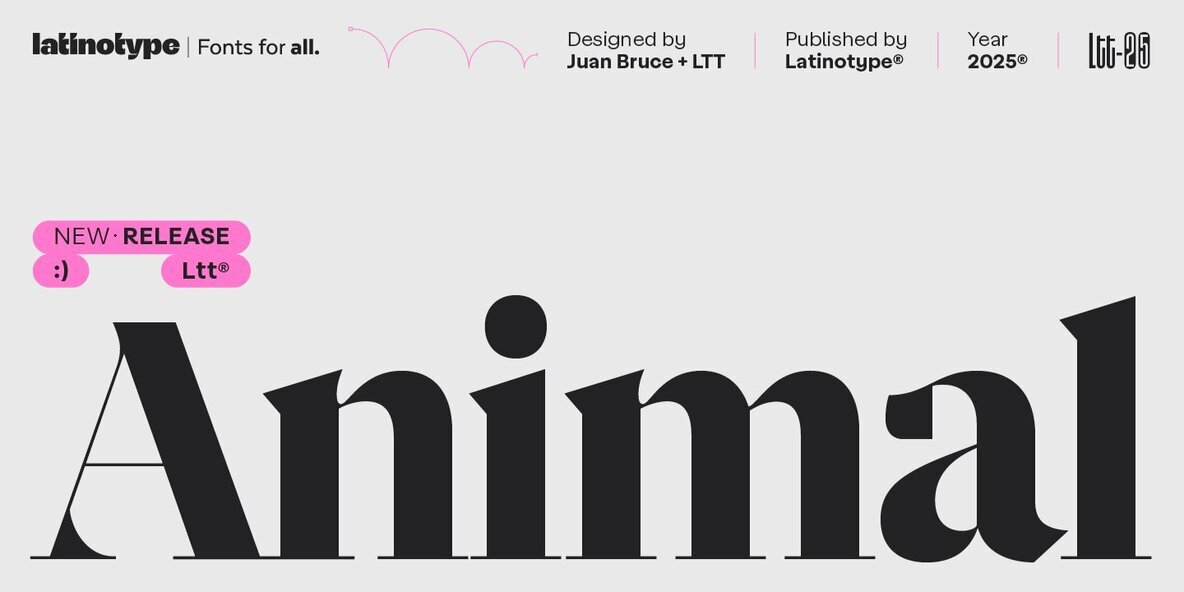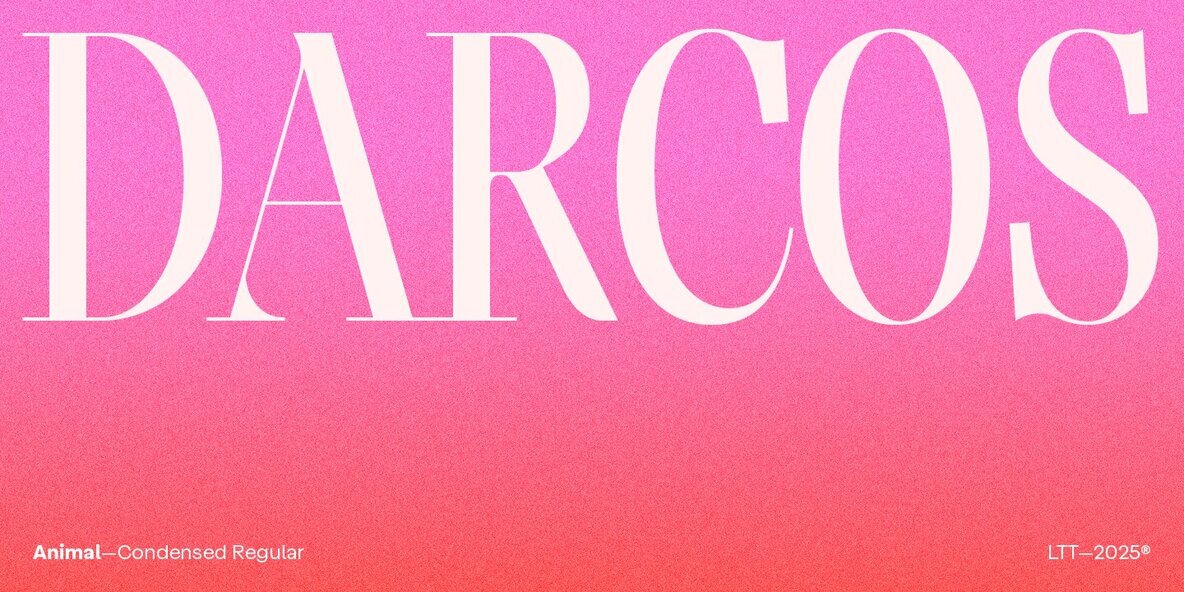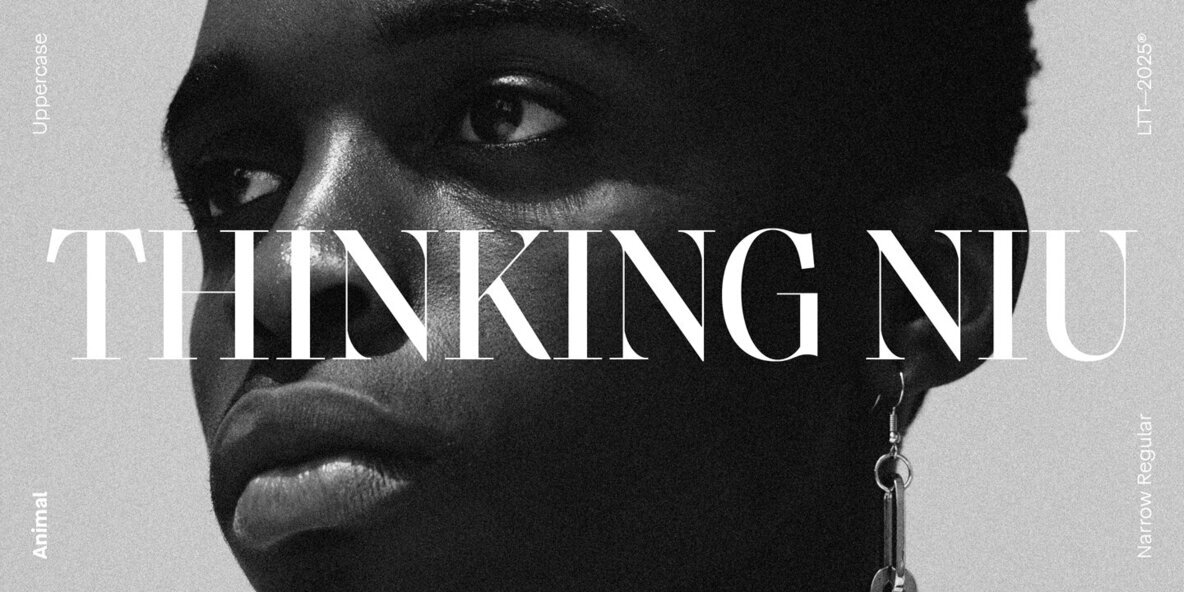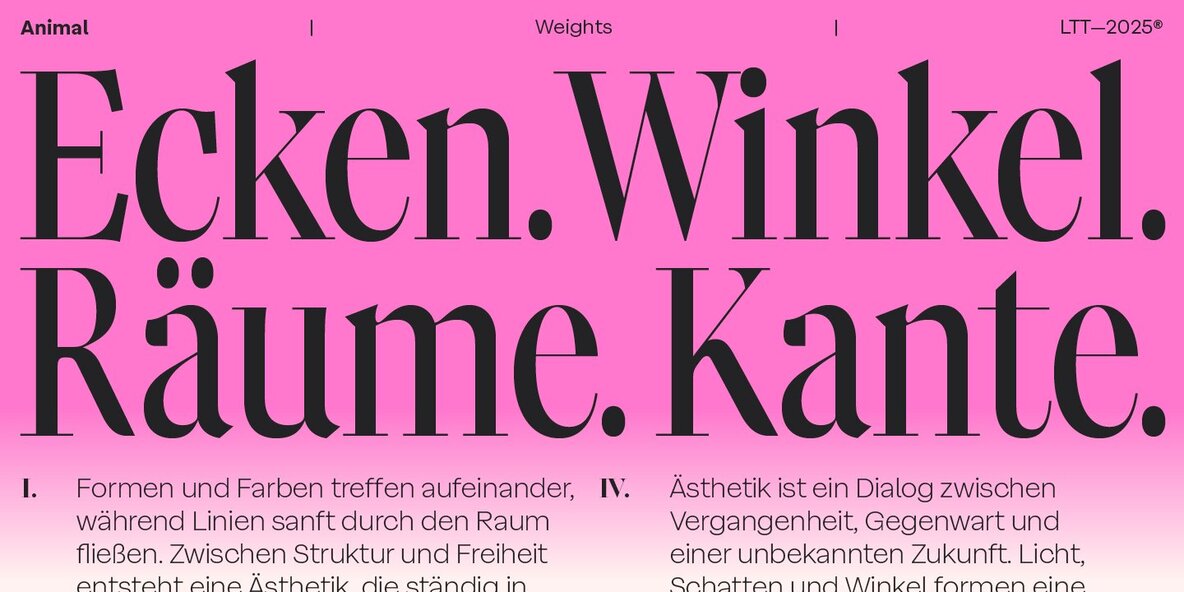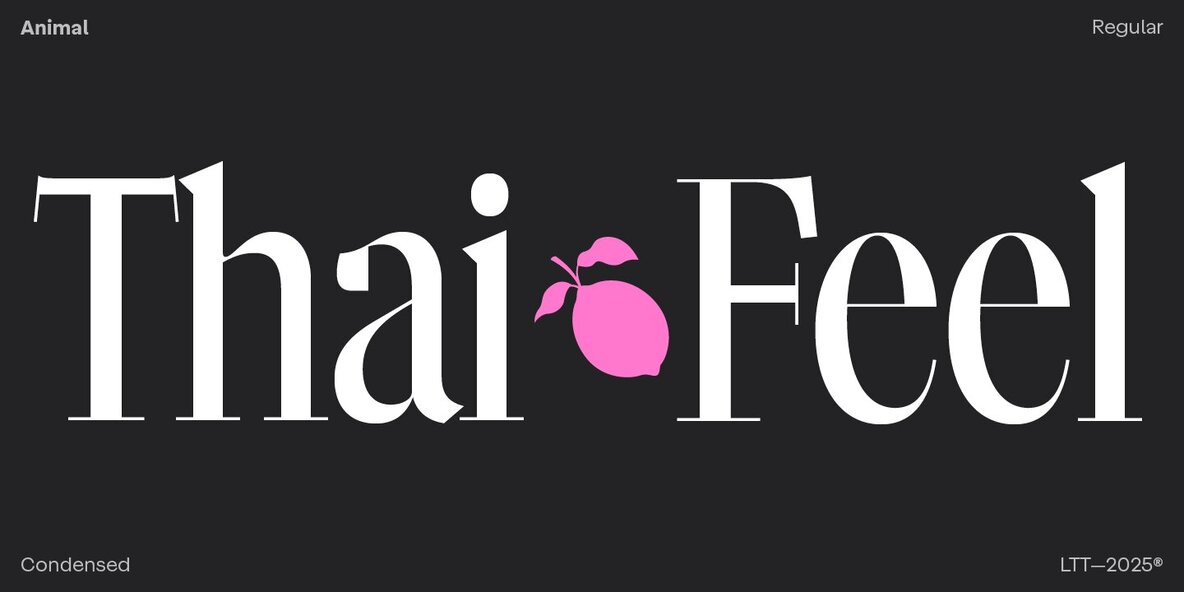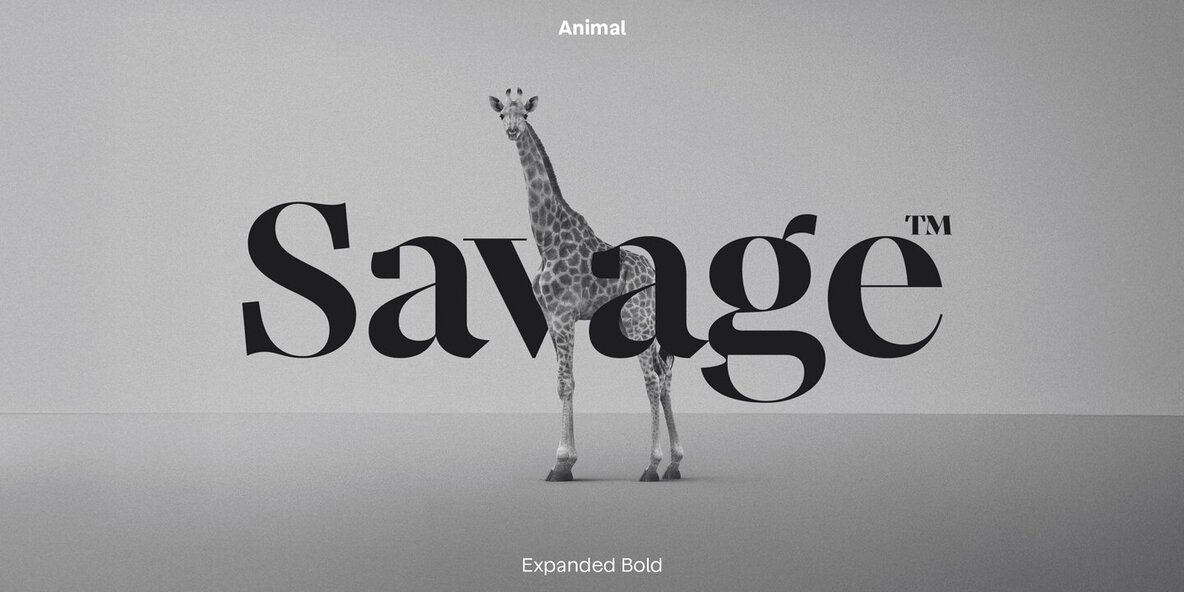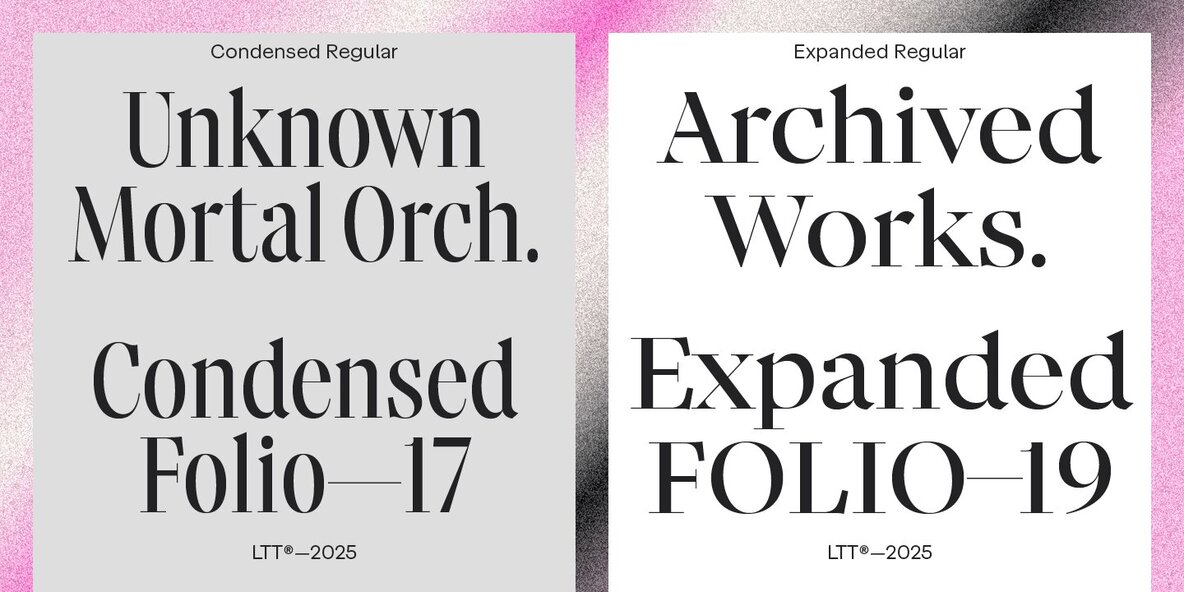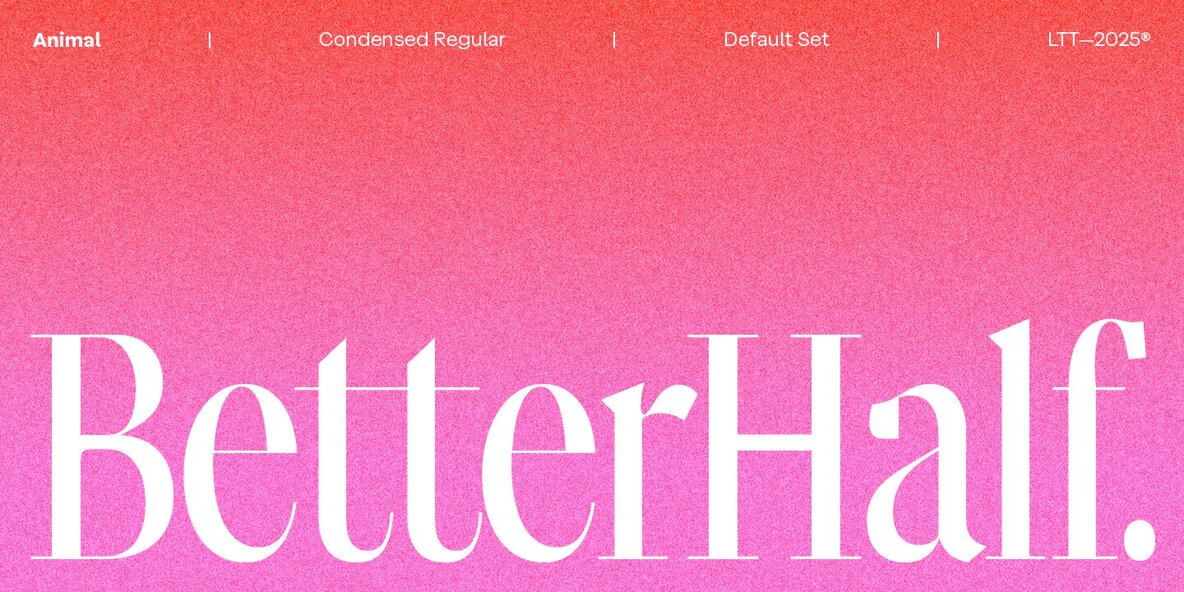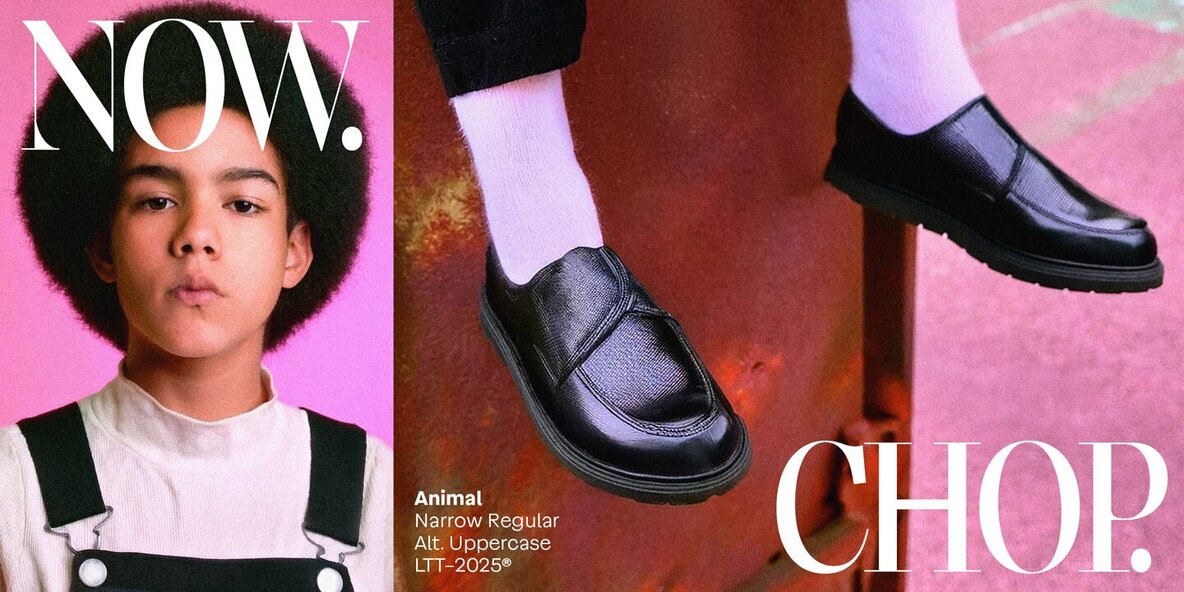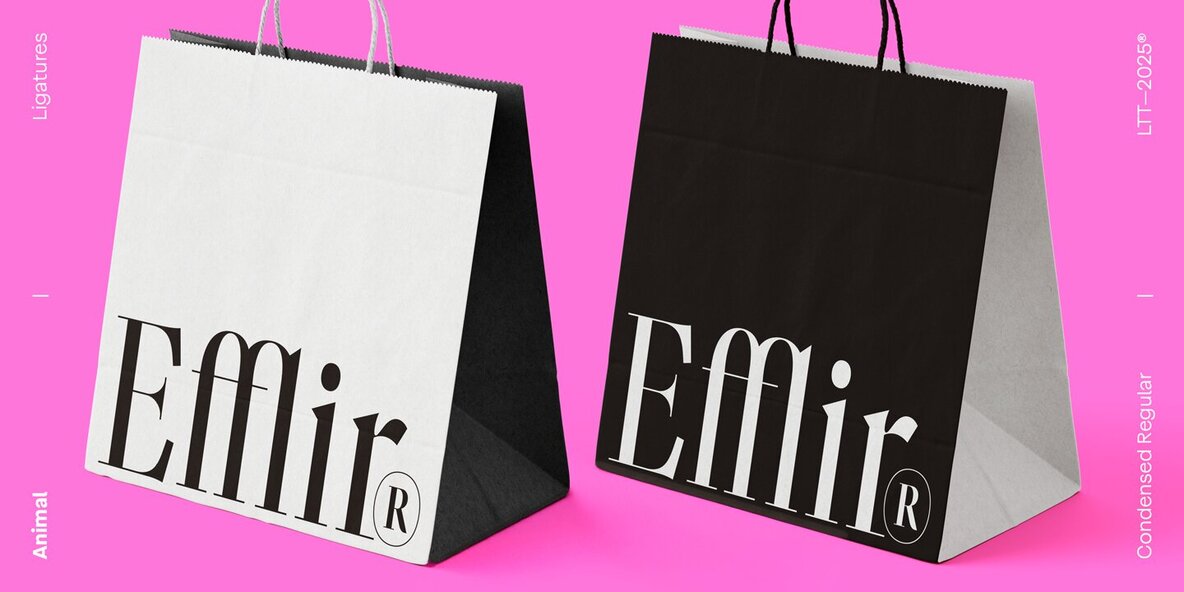
Animal Font
The Animal typeface exudes an untamed elegance, defined by high contrast and sharp details. This serif font commands attention with its bold yet sophisticated forms, drawing inspiration from the animal kingdom's strength and balance. The dynamic structure intertwines fluid curves and dramatic contrasts, with unusual terminals and angular strokes lending Animal a distinctive and commanding presence. Designed for versatility, Animal offers four widths—Wide, Normal, Condensed, and Narrow. Each width presents three weights: Regular, Bold, and Black. This flexible system makes Animal an expressive choice for branding, posters, fashion campaigns, bold headlines, and packaging.Animal: Untamed Serif with Striking Elegance
Features of the Animal Typeface